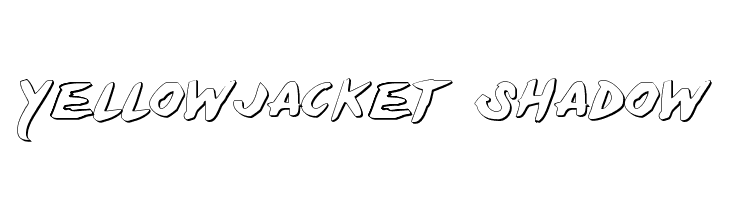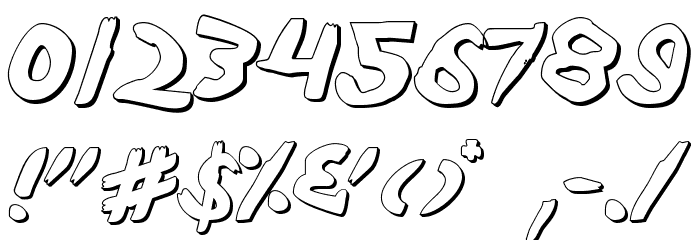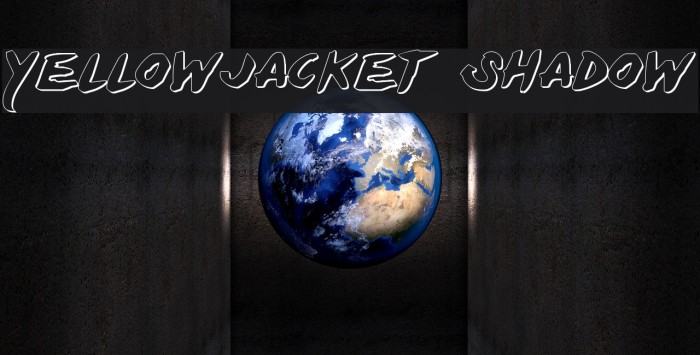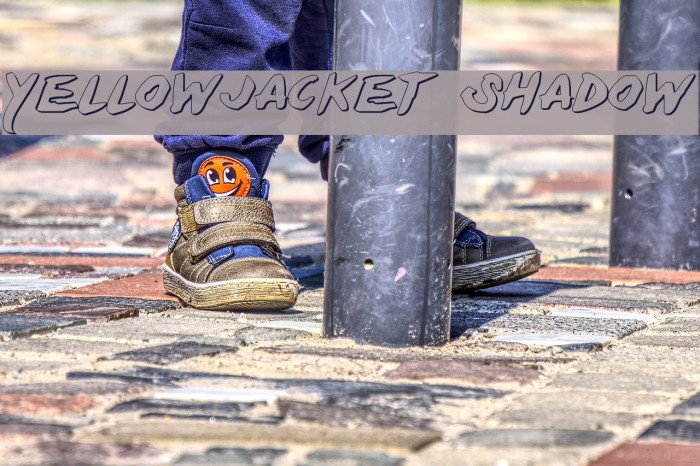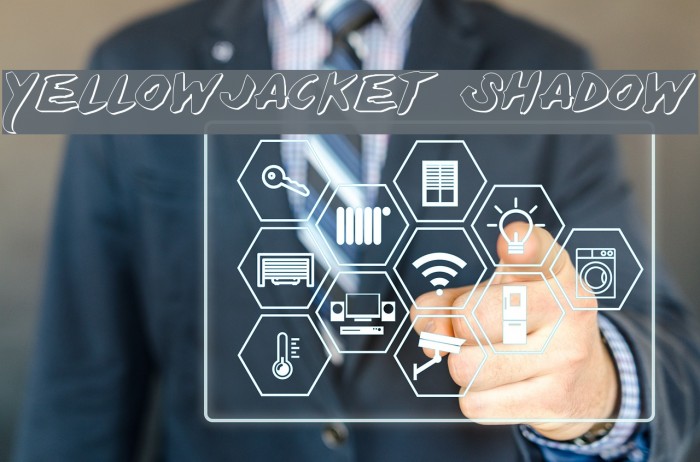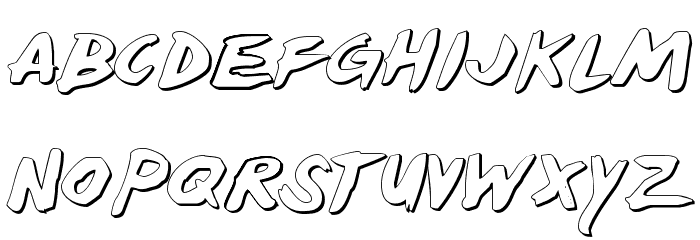
Yellowjacket Shadow Font
Yellowjacket Shadow Description
This font features a bold, playful style with a distinct shadow effect that adds depth and dimension to each character. The letters are slightly slanted, giving a dynamic and energetic feel. The uppercase and lowercase letters maintain a consistent style, with rounded edges and a hand-drawn appearance. The numbers and special characters follow the same design principles, ensuring uniformity across all elements. The shadow effect is prominent, enhancing the visual impact and making the text stand out. This font is ideal for projects that require a fun and engaging look.
| Overall Style | Playful, Energetic |
| Use Case | Headlines, Posters, Branding |
| Proposed Projects | Great for comic books, children's books, posters, and playful branding. |